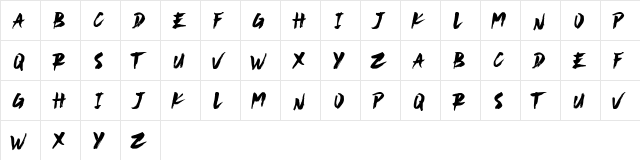
Never Settle Demo Reguler
| Foundry | Atom٠Graphic Studio |
| Designer | Eko Kurniawan @ Letteratom |
Design Context for Never Settle Demo Typeface
Never Settle Demo is a composed and adaptable typeface that performs quietly and consistently across a wide range of design contexts.